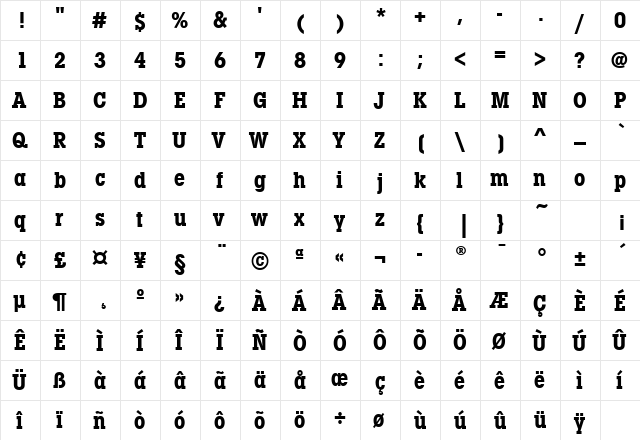
LubalinGraphMdCdITCTT Bold
Design Context for LubalinGraphMdCdITCTT Typeface
LubalinGraphMdCdITCTT takes a measured approach to typography — its balanced proportions and neutral character make it a reliable workhorse for both digital and print work. The heavy weight commands attention and anchors typographic hierarchies.